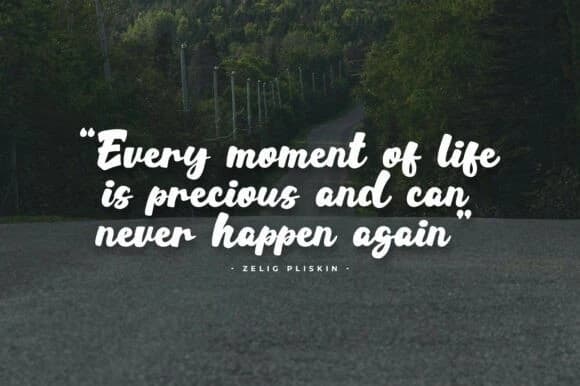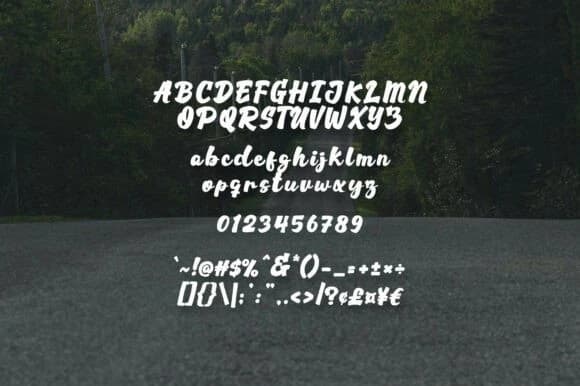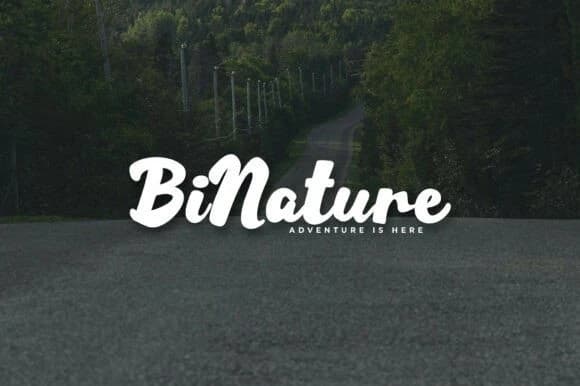
Rahull Script Font
Rahull Script Font is a modern handwritten script font with a clean, flowing style that mimics natural penmanship. This bold, playful script captures the essence of modern brush lettering with its thick strokes and soft, rounded edges.